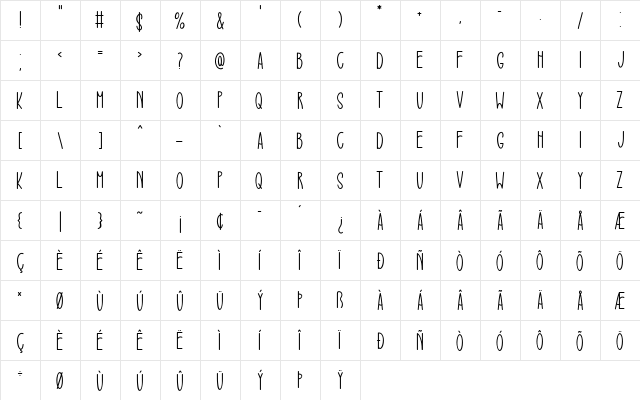
Spread Joy Regular
Design Context for Spread Joy Typeface
Spread Joy is a composed and adaptable typeface that performs quietly and consistently across a wide range of design contexts.